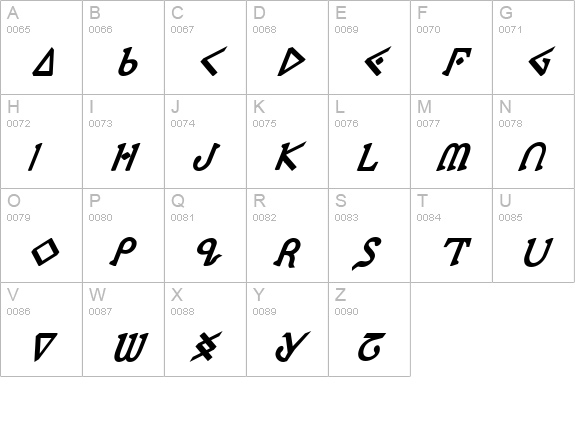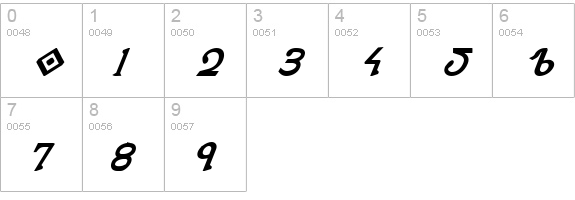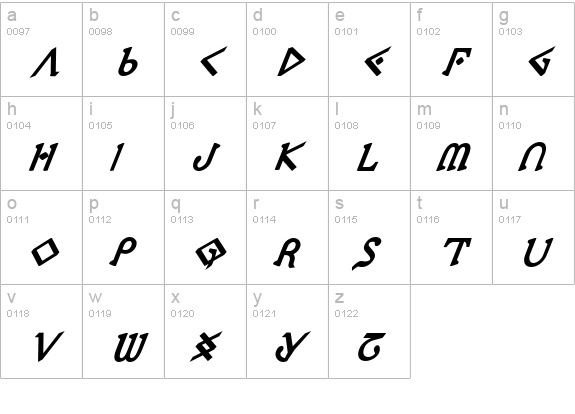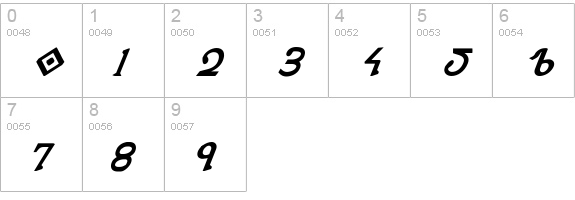
Presley Press ExtraBold Ital is an extra-heavy, attention-grabbing variant in the Presley typeface family \xE2\x80\x94 well suited to high-impact headlines, posters, and bold branding.
Presley Press ExtraBold Ital font is a bold and eye-catching typeface designed to make a statement. With its strong and slanted italics, this font exudes confidence and modernity. Perfect for headlines, posters, and branding projects that require a bold and dynamic touch. Best of all, Presley Press ExtraBold Ital font is available for free download at FontsMarket.com. Whether you're a designer looking to make a bold statement or a content creator in need of a standout font, this typeface is a versatile and stylish choice that won't cost you a penny. Don't miss out on the opportunity to enhance your projects with this striking font - download it for free today!